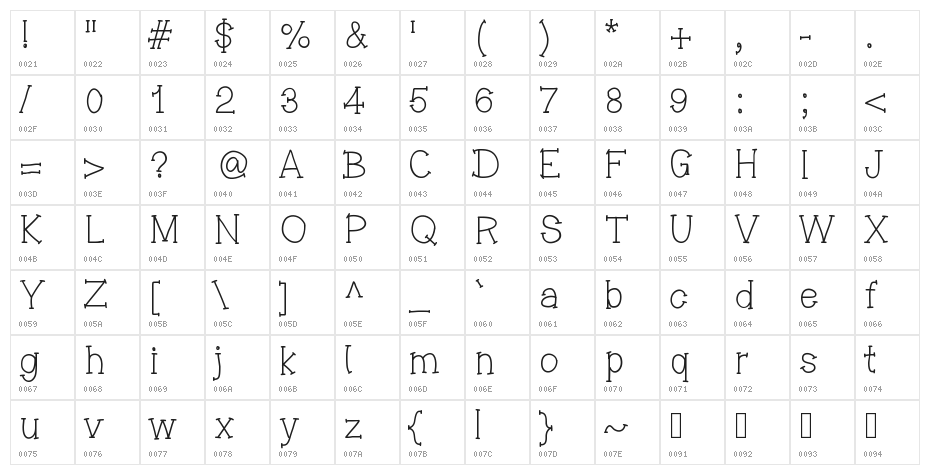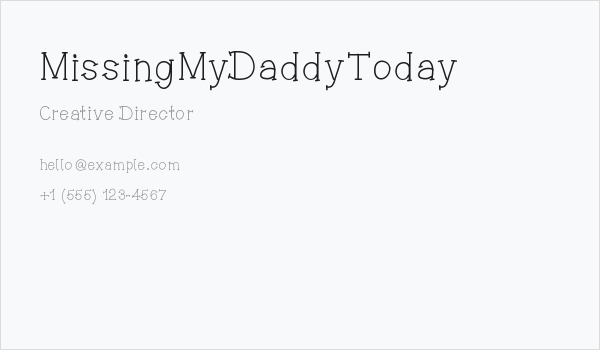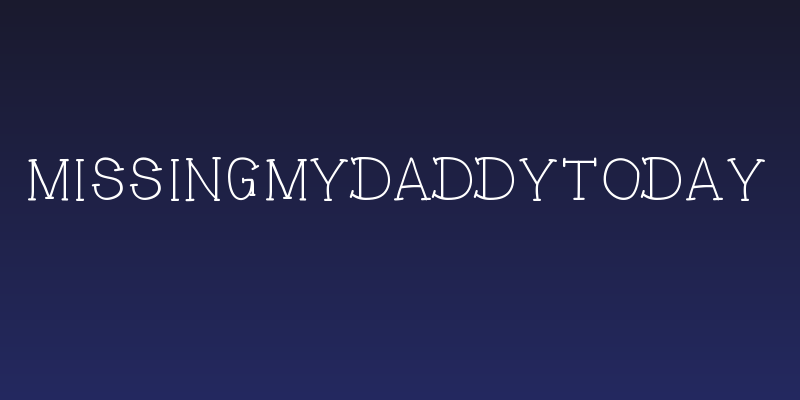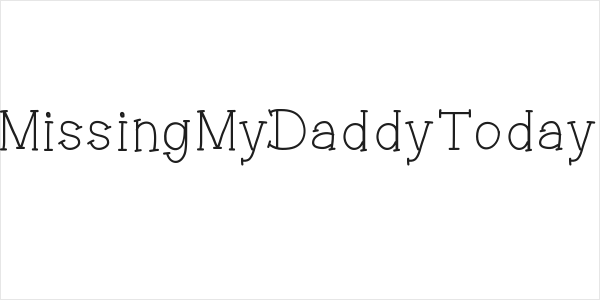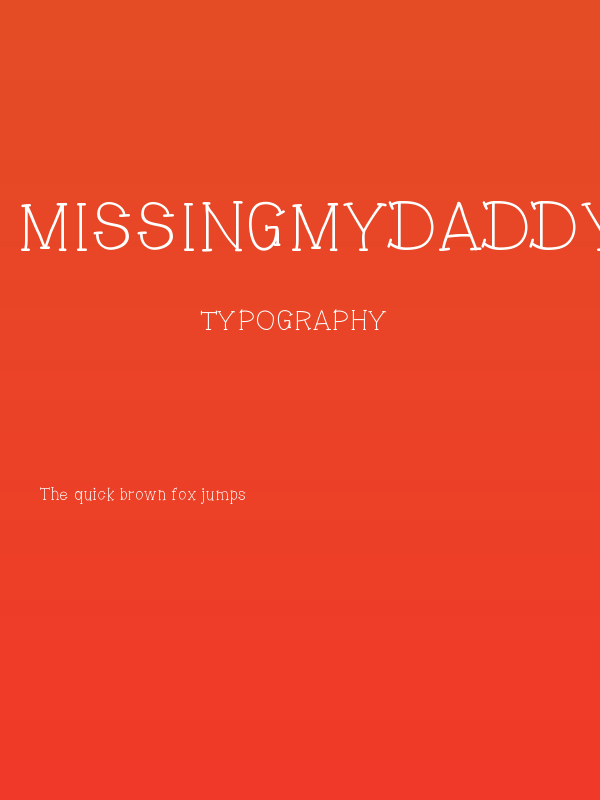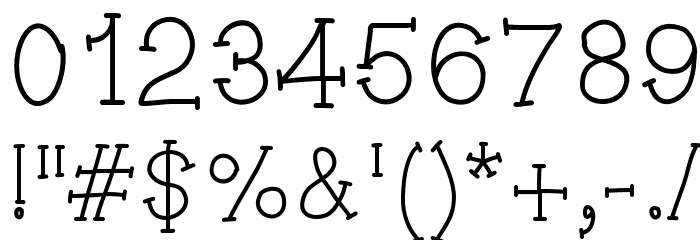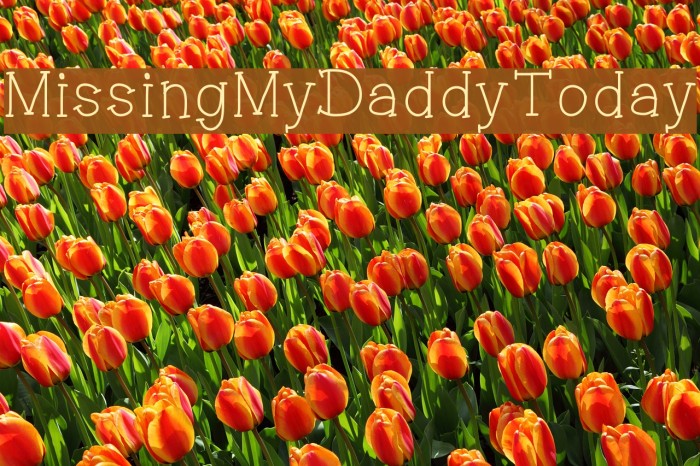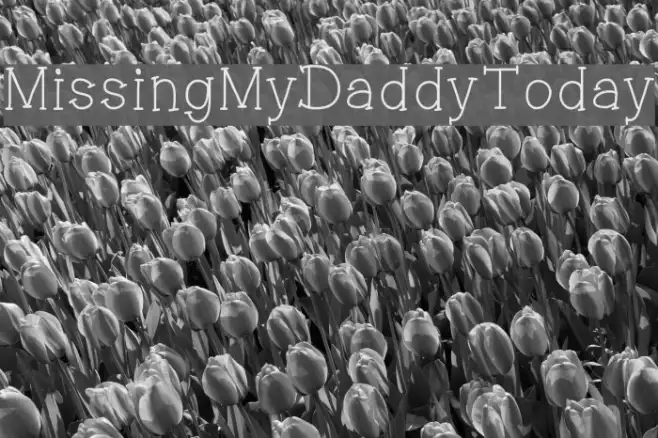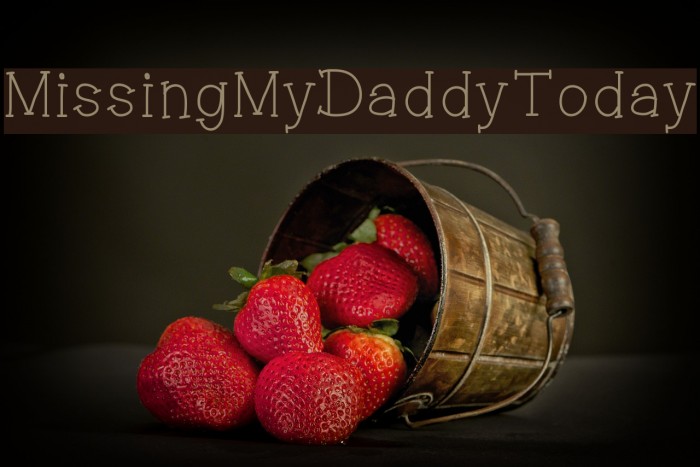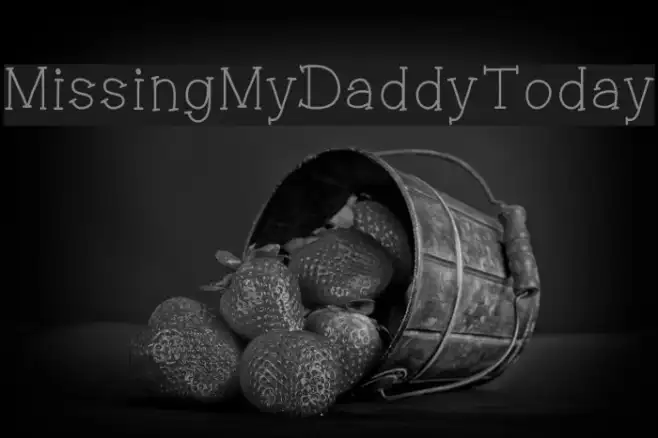
MissingMyDaddyToday Font
MissingMyDaddyToday Description
This font features a playful and whimsical design, characterized by its unique and quirky serifs that give it a hand-drawn appearance. The letters have a consistent stroke width, creating a harmonious and balanced look. The uppercase letters are tall and slightly narrow, while the lowercase letters maintain a similar style with rounded edges and a friendly demeanor. The numerals are bold and clear, ensuring readability. Special characters are creatively designed, adding to the font's overall charm. This font is ideal for projects that require a touch of fun and creativity.